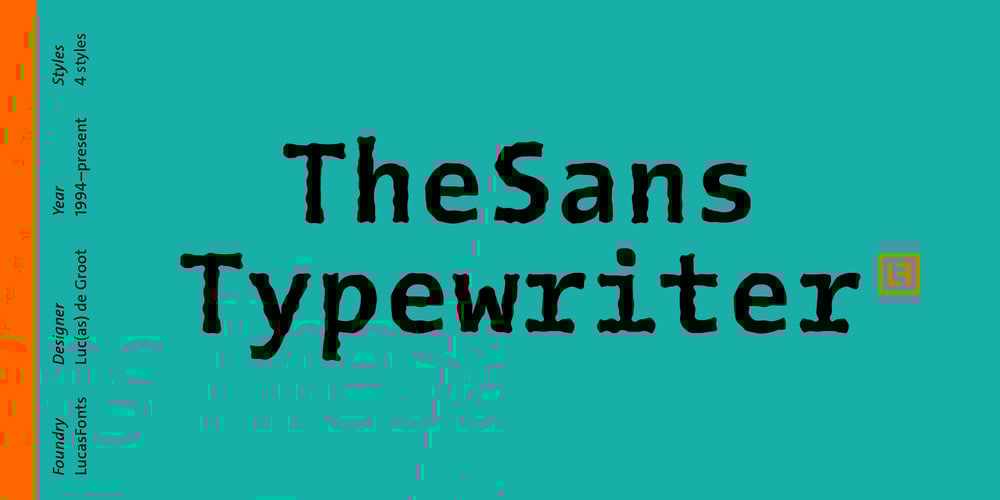
TheSans Typewriter
TheSans Typewriter font
TheSans Typewriter Font Family was designed by Luc(as) de Groot and published by LucasFonts. TheSans Typewriter contains 4 styles and family package options. A friendly monospaced typewriter font with slightly distorted outlines – not another “dirty typewriter font”!